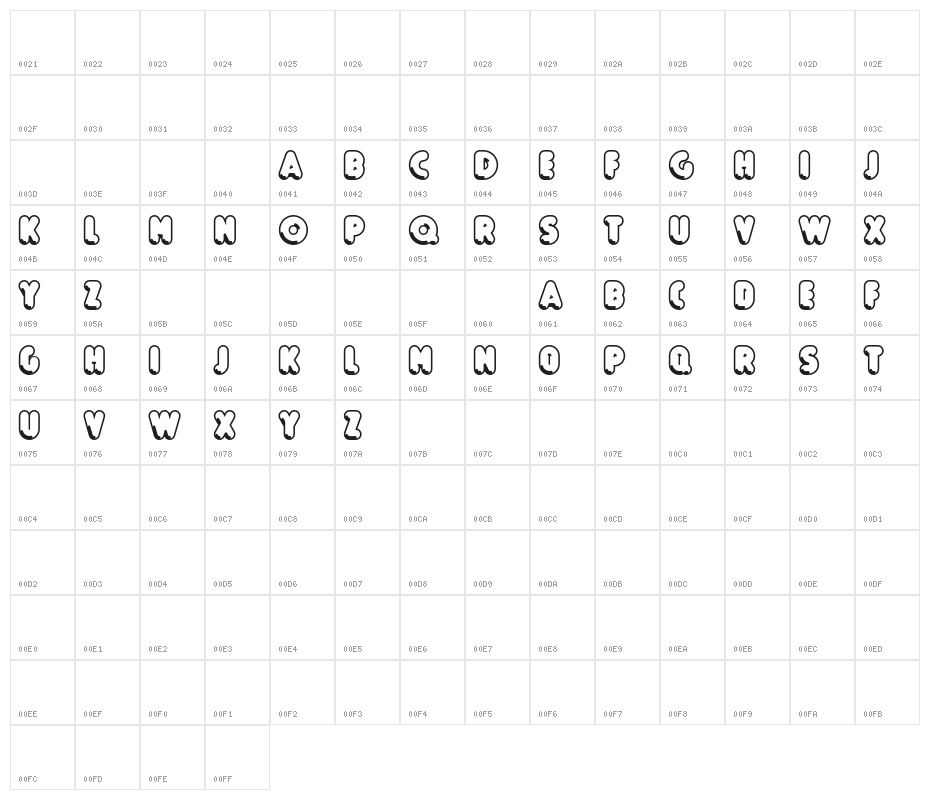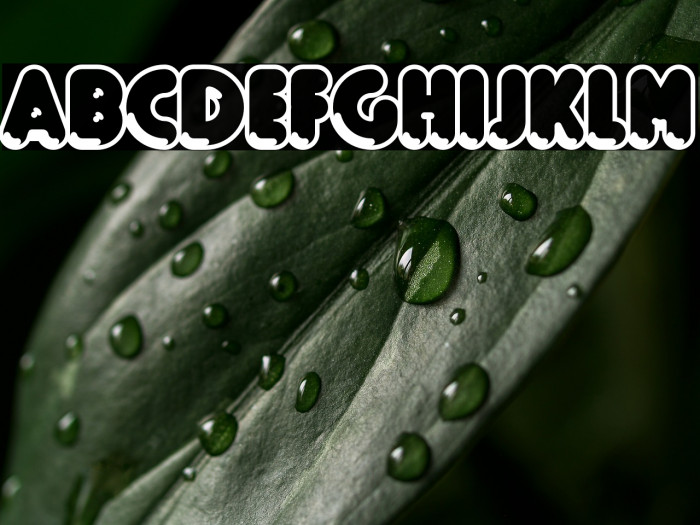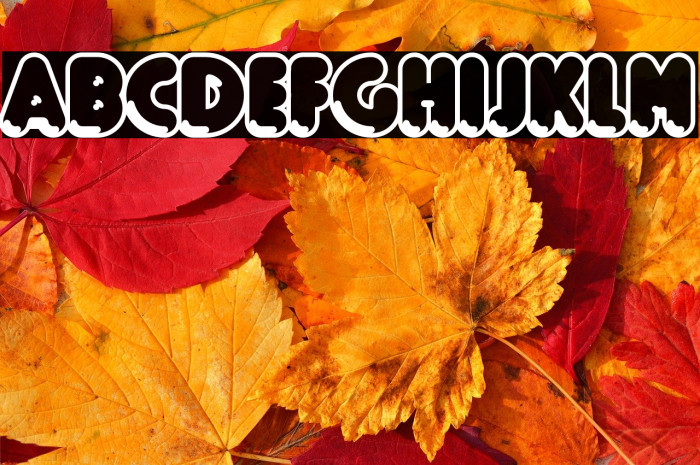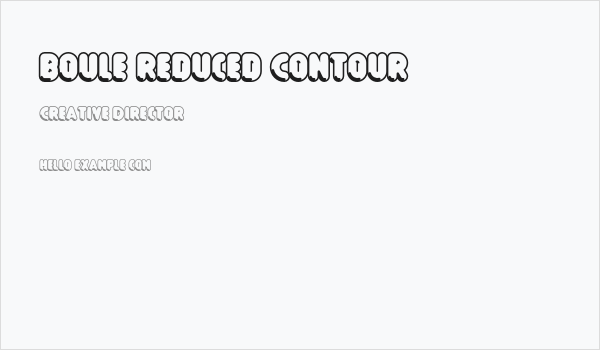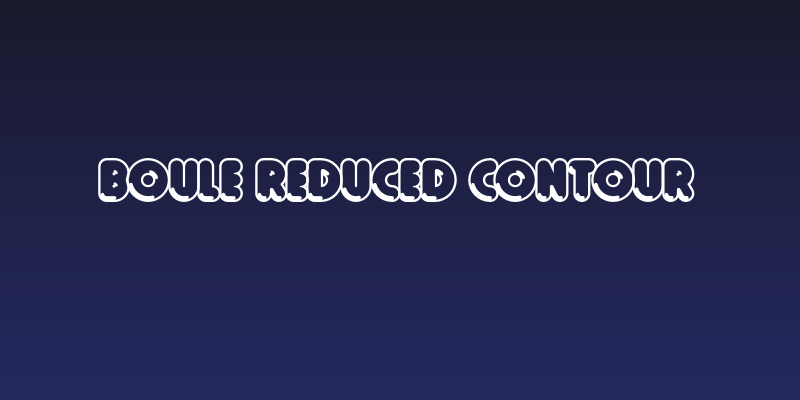
Boule Reduced Contour Font
Boule Reduced Contour Description
This font features a bold, playful design with a thick outline that gives each character a three-dimensional appearance. The letters are rounded and bubbly, creating a sense of fun and whimsy. The consistent stroke width and smooth curves contribute to a cohesive and approachable style. This font is highly decorative, making it ideal for eye-catching designs. Its unique contour adds depth and interest, making it stand out in any project. The uppercase letters are uniform in height, enhancing readability while maintaining a playful aesthetic.
| Overall Style | Playful, Decorative |
| Proposed Projects | Ideal for children's book covers, playful branding, party invitations, and eye-catching posters. |